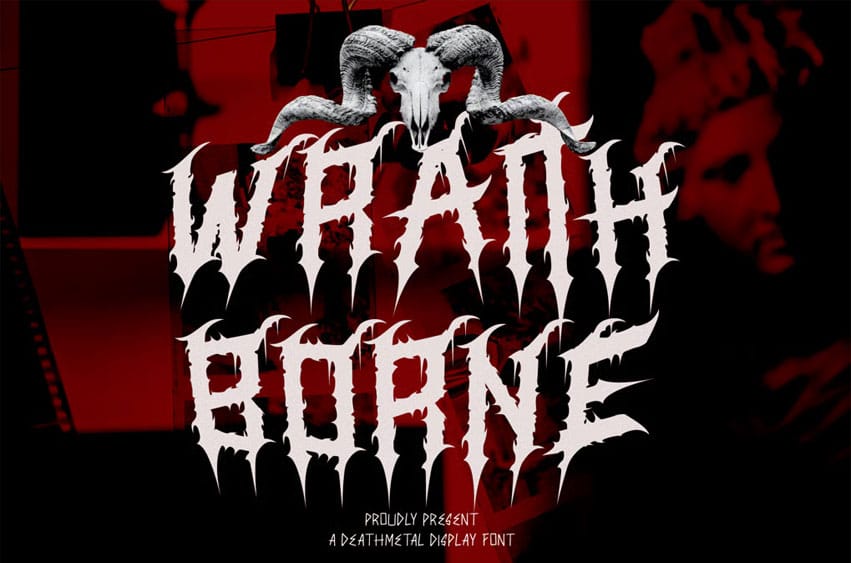
Wraithborne Deathmetal Font is a deathmetal font that embodies the eerie and spectral nature of the undead, where shadows and spirits intertwine, creating a presence that haunts the darkest corners of the world.
The name “Wraithborne” evokes the image of a being born from the void — a wraith, drifting between the realms of the living and the dead, a figure of eternal torment and malevolent energy.